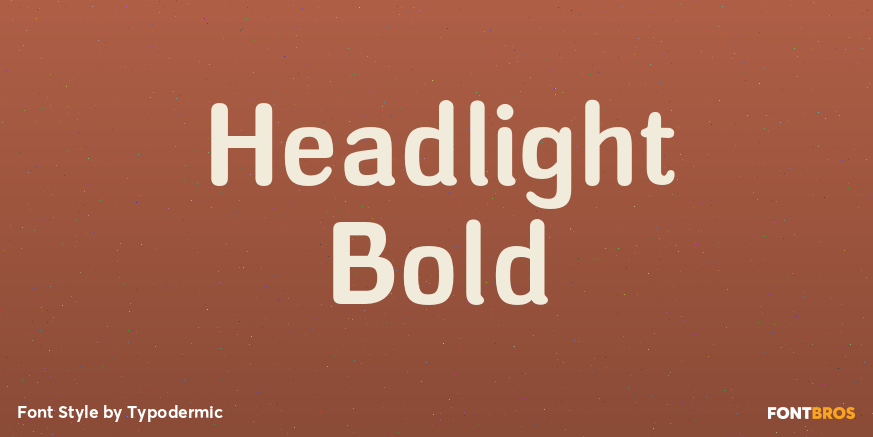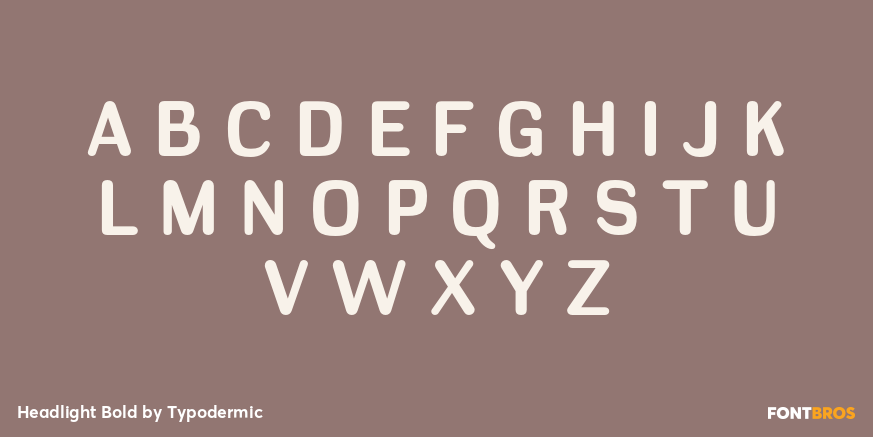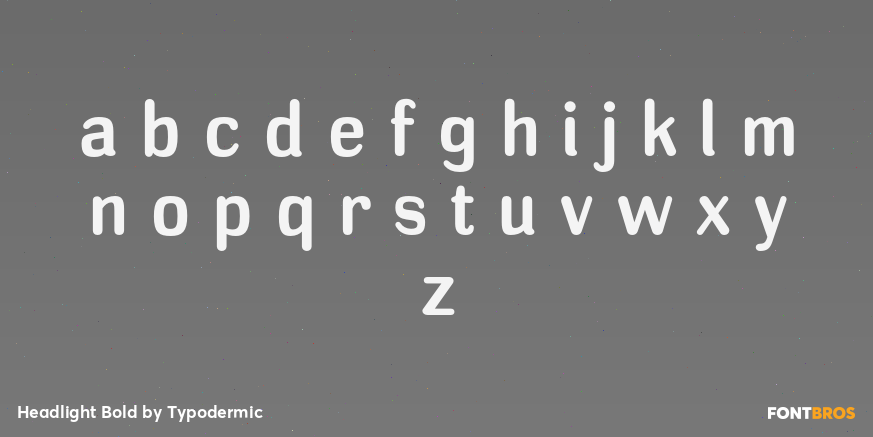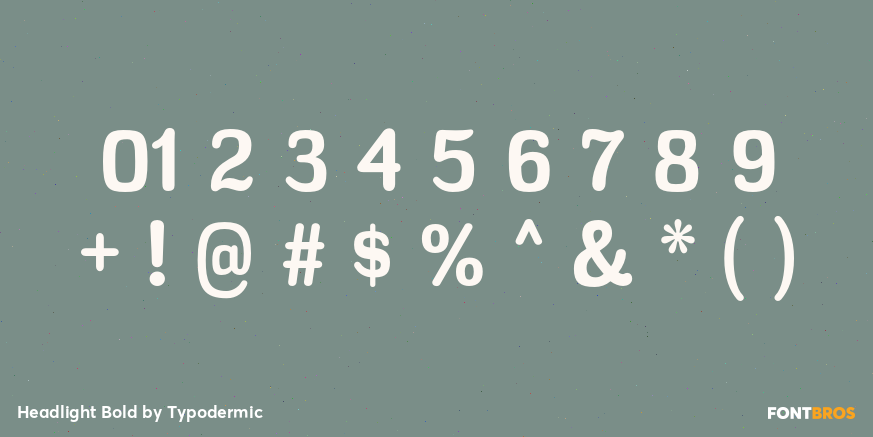
Headlight Bold
Some machines have to meet the public.
A service robot crossing a hotel lobby, a parcel locker outside an apartment building or a check-in terminal at an airport cannot look like factory equipment. But pushing too far toward friendly rounded typography can make substantial hardware look toy-like. Headlight occupies the useful territory between those extremes.